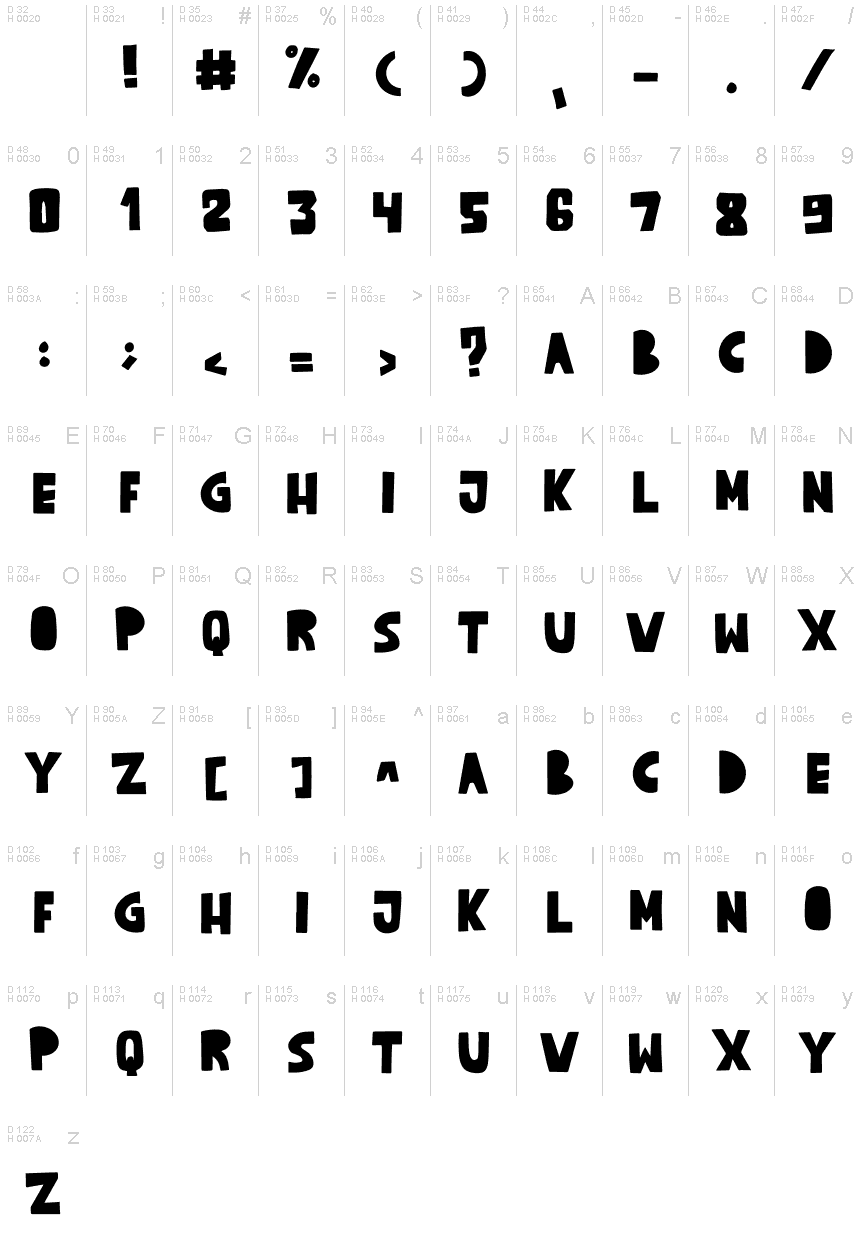
Crispy Cream Bold
Crispy Cream Bold, a playful member of the Crispy Cream font family, carries the creative genius of The Docallisme - Amry Al Mursalaat. This display typeface boasts an extra-bold weight that encapsulates fun with its cartoon-style lettering. Its stout and friendly characters are tailored to capture attention and inject personality into any visual composition.
The robustness of Crispy Cream Bold lends itself wonderfully to headlines, logos, and any project where a touch of whimsy is desired. Its aesthetic appeal lies in its ability to strike a balance between approachability and impactful presence - perfect for designs aiming to be both inviting and memorable.
Whether it's for branding, children's books, or playful advertising campaigns, Crispy Cream Bold has the versatility and charm that can elevate creative projects with its distinctive style and typographic flair.